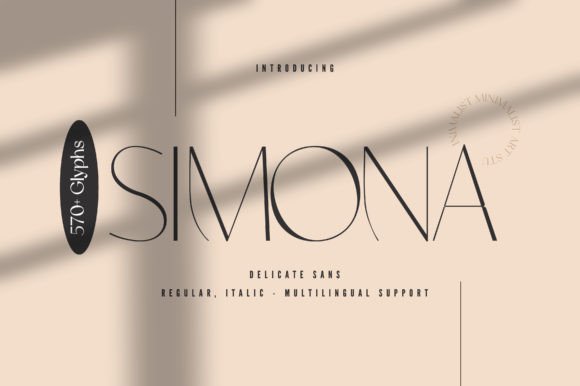
Journey into the world of elegance and minimalism with Simona, a striking sans serif font that weaves its magic on the canvas of your imagination. Its delicate strokes, inspired by the essence of simplicity, dance across the page, captivating the viewer with its refined charm. Simona is the embodiment of modern design, a font that effortlessly elevates the essence of your words and designs, whether crafted for print or the boundless realms of digital.
Embrace the versatility of Simona, a font that effortlessly adapts to the nuances of your creative vision. Its range of over 570 glyphs, symbols, and punctuation marks is a testament to its adaptability, providing you with the freedom to express your ideas in a multitude of forms. The font's availability in both regular and italic weights grants you the flexibility to switch between styles, effortlessly transitioning from the classic to the contemporary, depending on the project's unique demands.
Experience the visual symphony as Simona's clean lines and thin strokes orchestrate a harmonious balance on the page. Its polished appearance adds a touch of sophistication to logos, branding, editorial designs, and countless other projects, leaving an indelible mark on the minds of your audience. The font's simplicity and elegance act as a beacon of clarity, allowing your message to resonate with unwavering impact.
Simona is an homage to the art of minimalism, its design philosophy anchored in the belief that less is more. This font, with its unassuming presence, amplifies the impact of your words, allowing them to shine through with newfound brilliance. As a designer, you hold the key to unlocking the potential of your creative vision, and Simona stands as your trusted companion, empowering you to weave enchanting tales through visual artistry.
Embrace the transformative power of Simona, a font that transcends the ordinary, elevating your design projects to new heights of sophistication and grace. With its versatility, adaptability, and minimalist charm, Simona becomes an extension of your imagination, harmonizing with your artistic vision to create masterpieces that leave a lasting impression. Experience the magic of Simona today, and witness the metamorphosis of your designs into captivating works of art.